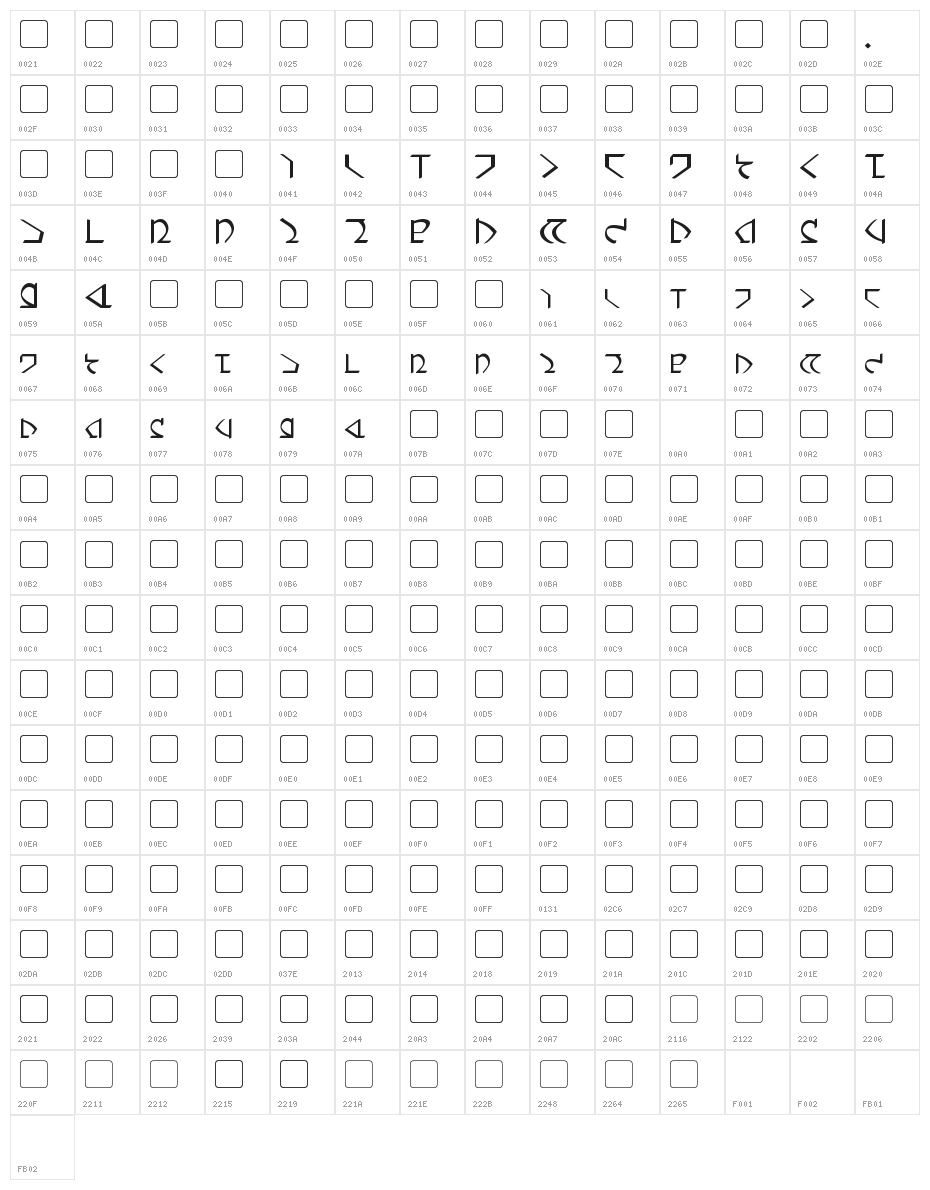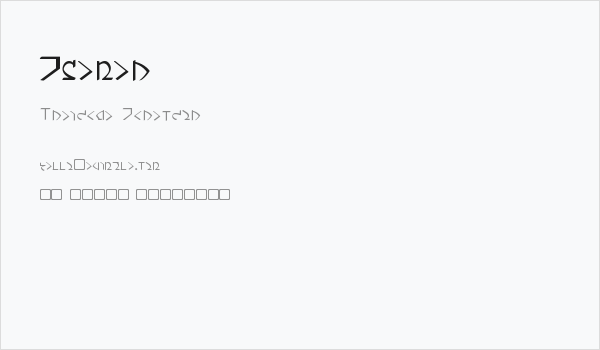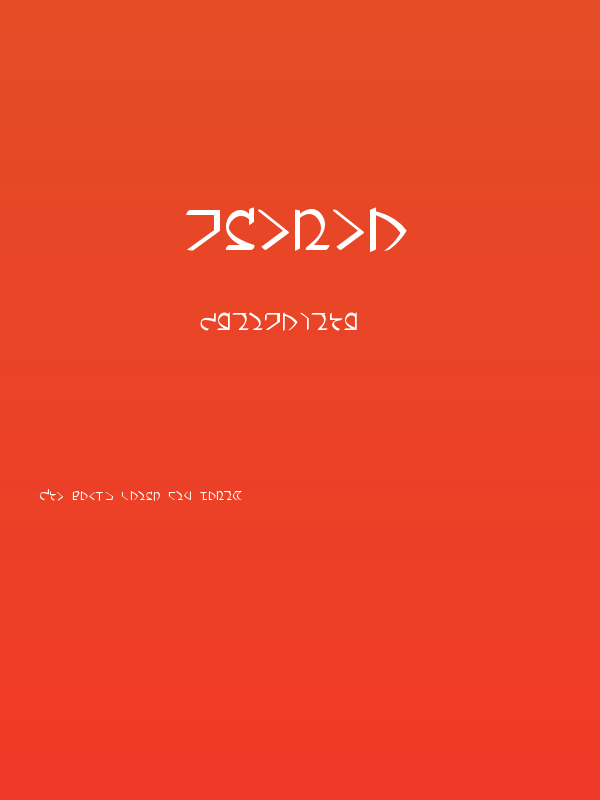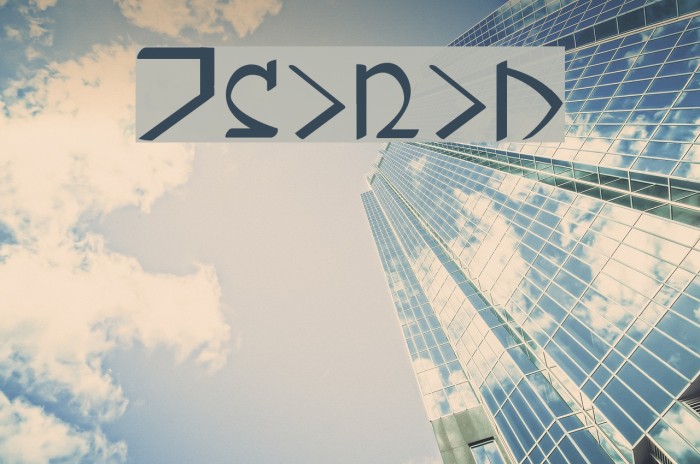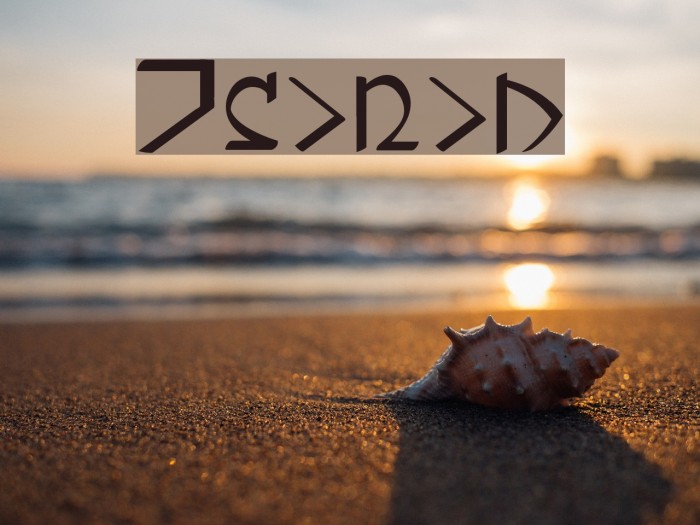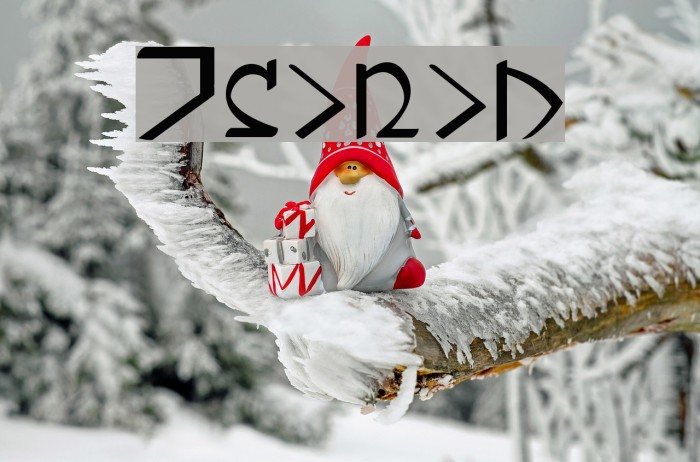
Dwemer Font
Dwemer Description
This font features a unique, angular design reminiscent of ancient or fantasy scripts. The characters are composed of sharp, geometric lines and angles, giving it a distinctly mechanical and archaic appearance. The overall style is decorative and thematic, suitable for projects that require a touch of mystery or a connection to ancient civilizations. The font lacks traditional curves, instead opting for a more rigid and structured form, which enhances its distinctive look. The spacing between characters is normal, allowing for clear readability despite its unconventional style.
| Use Case | Logos, Titles, Thematic Designs |
| Proposed Projects | Ideal for fantasy-themed projects, video game design, movie titles, or any creative work that requires an ancient or mystical feel. |